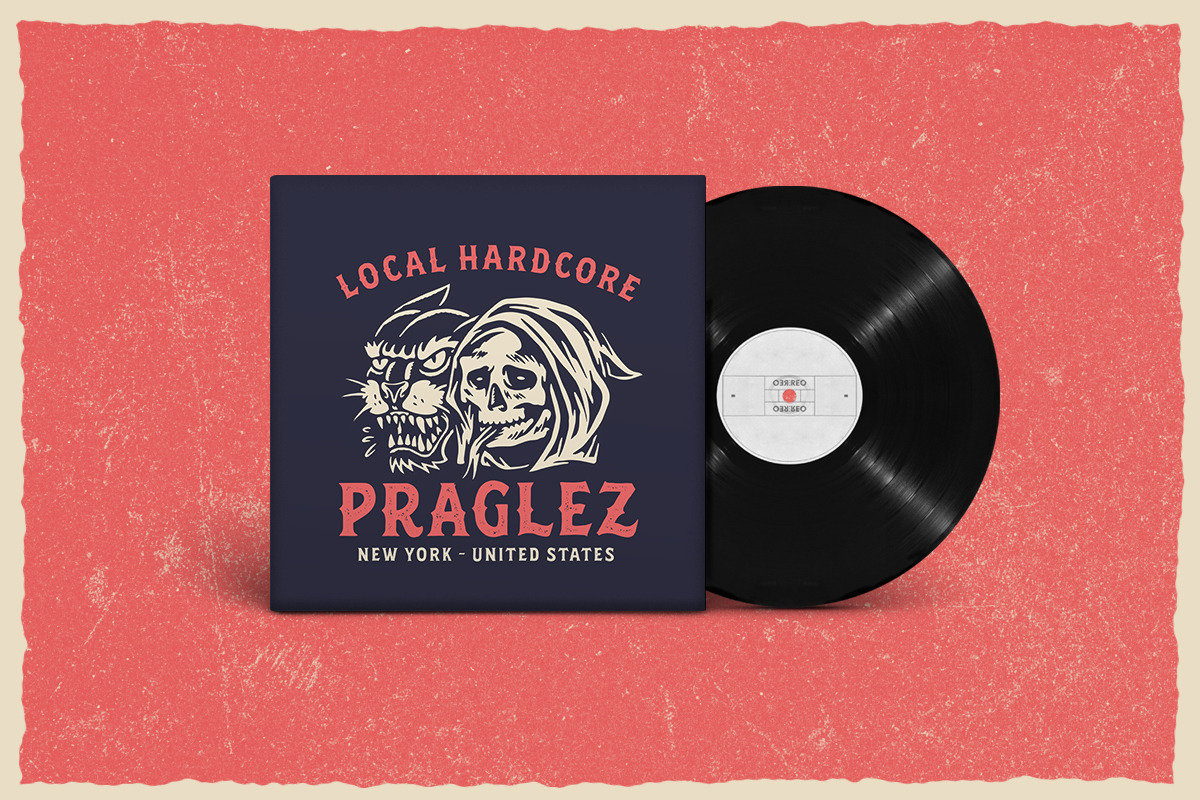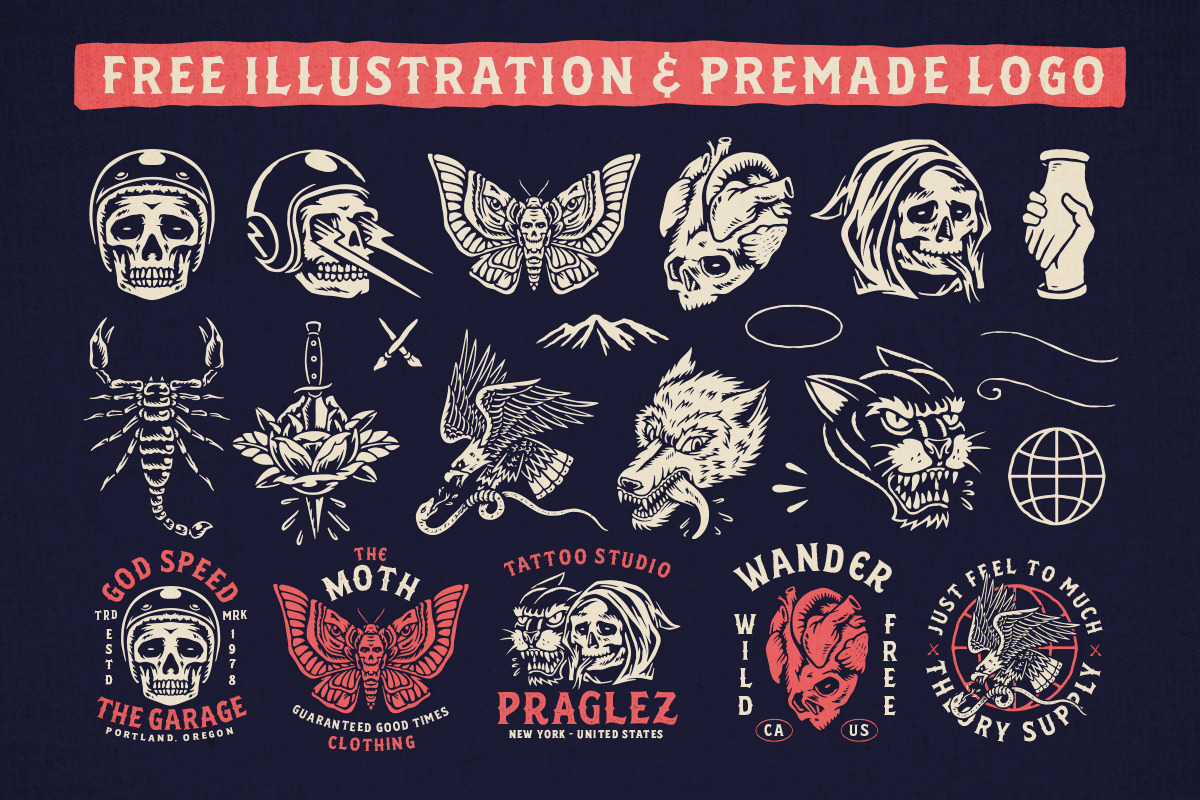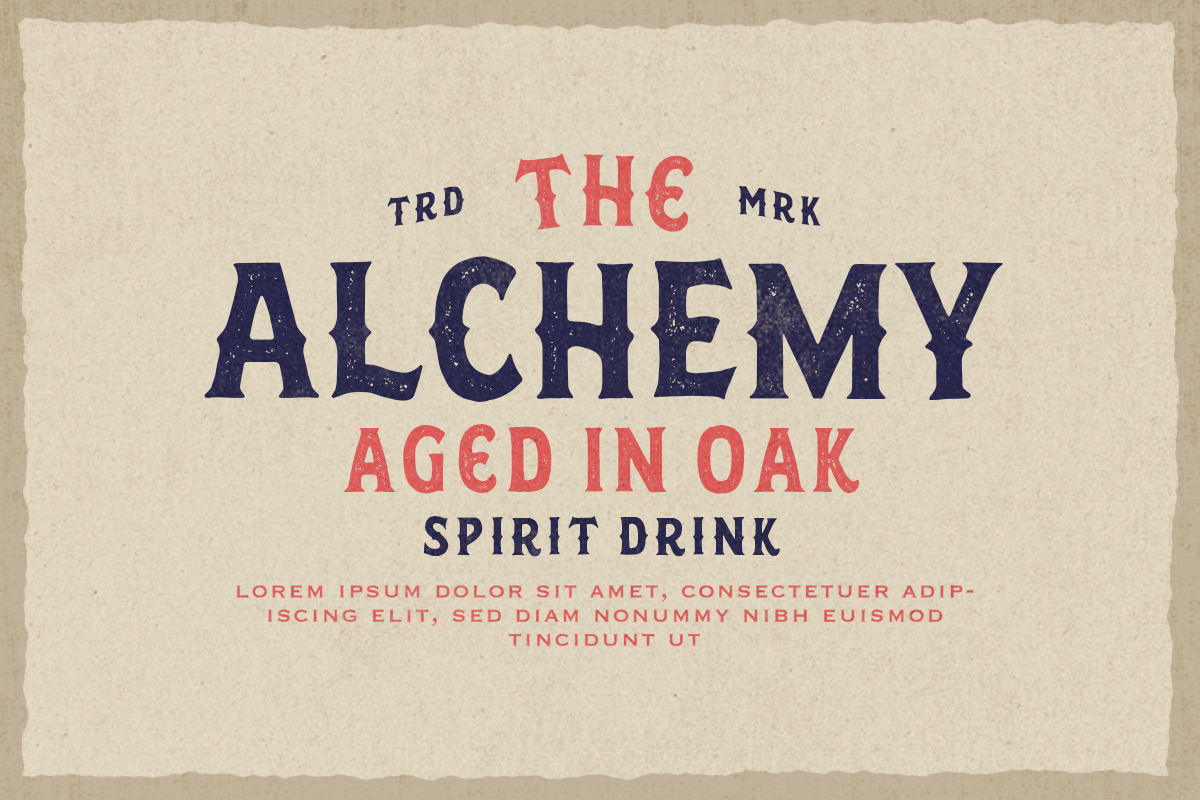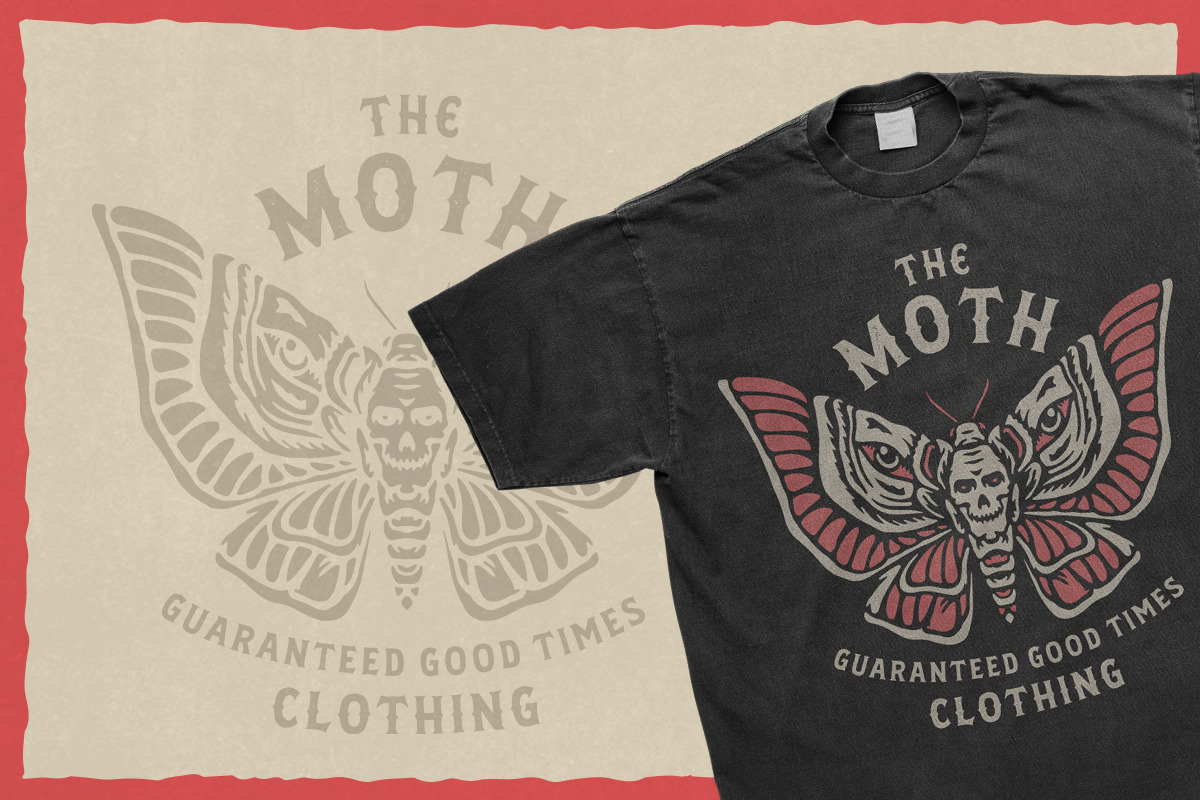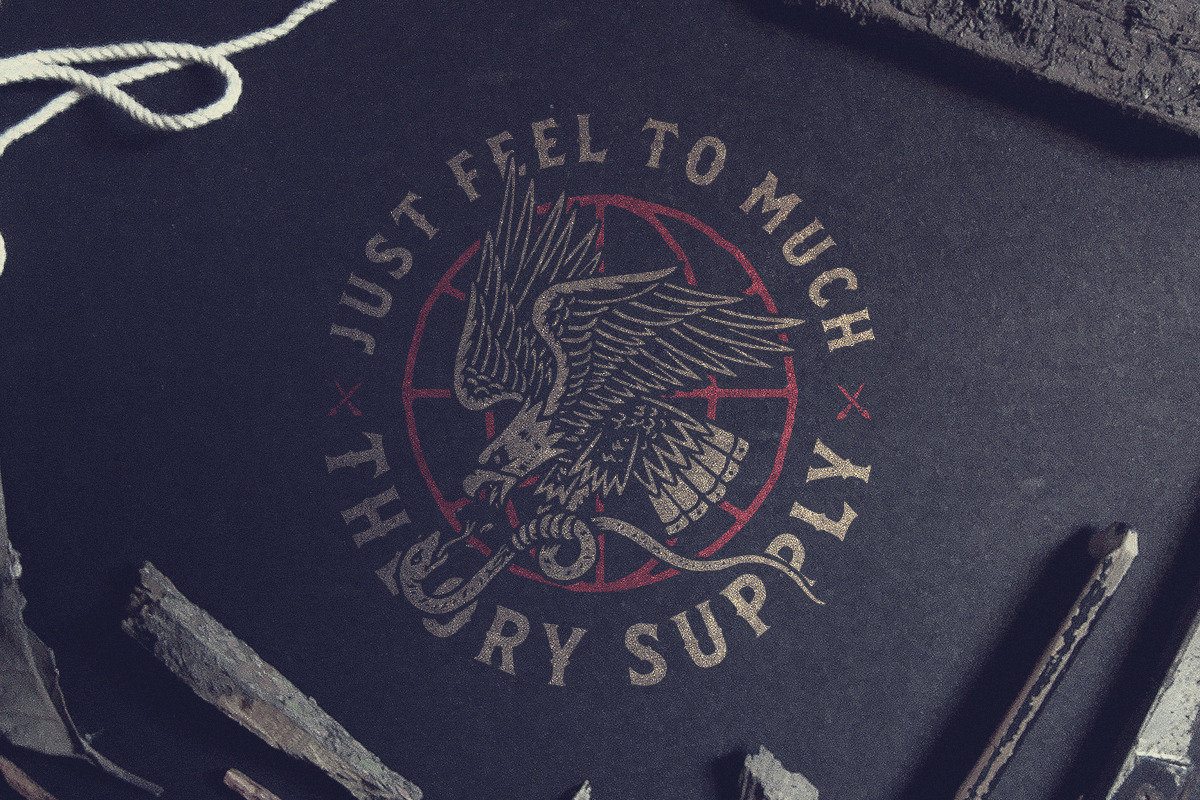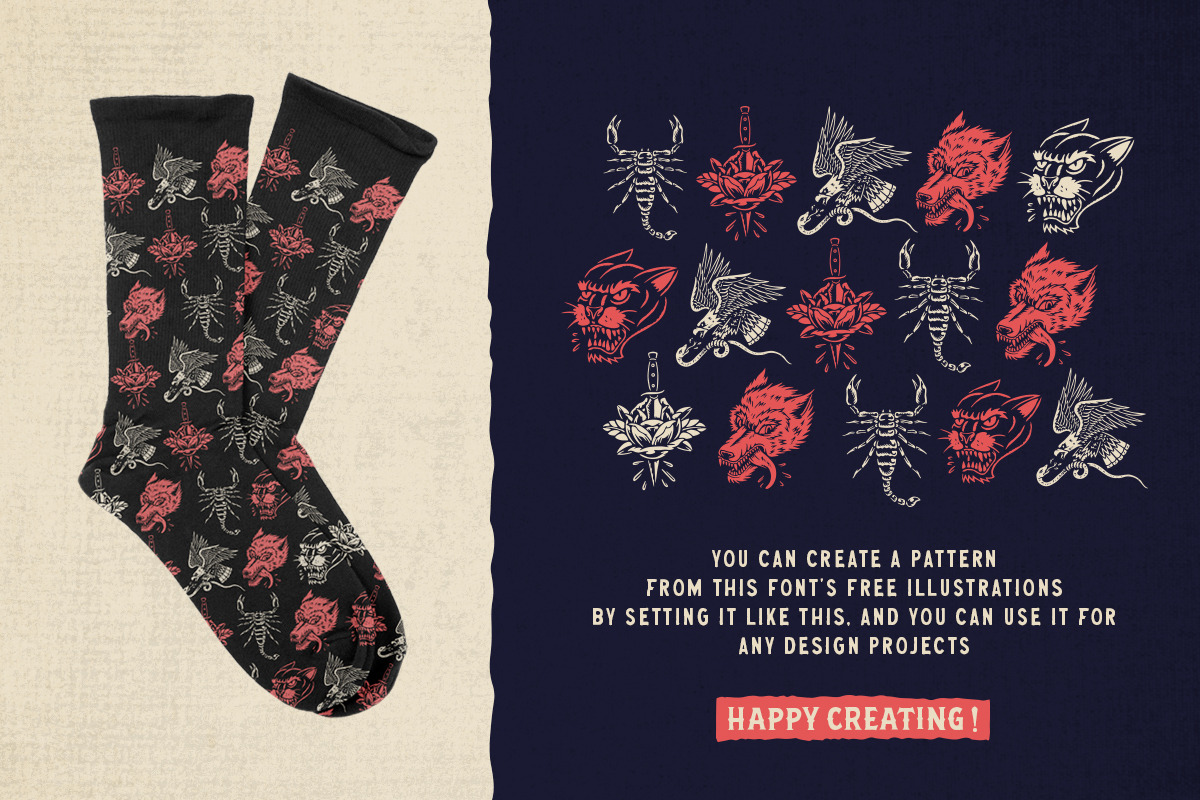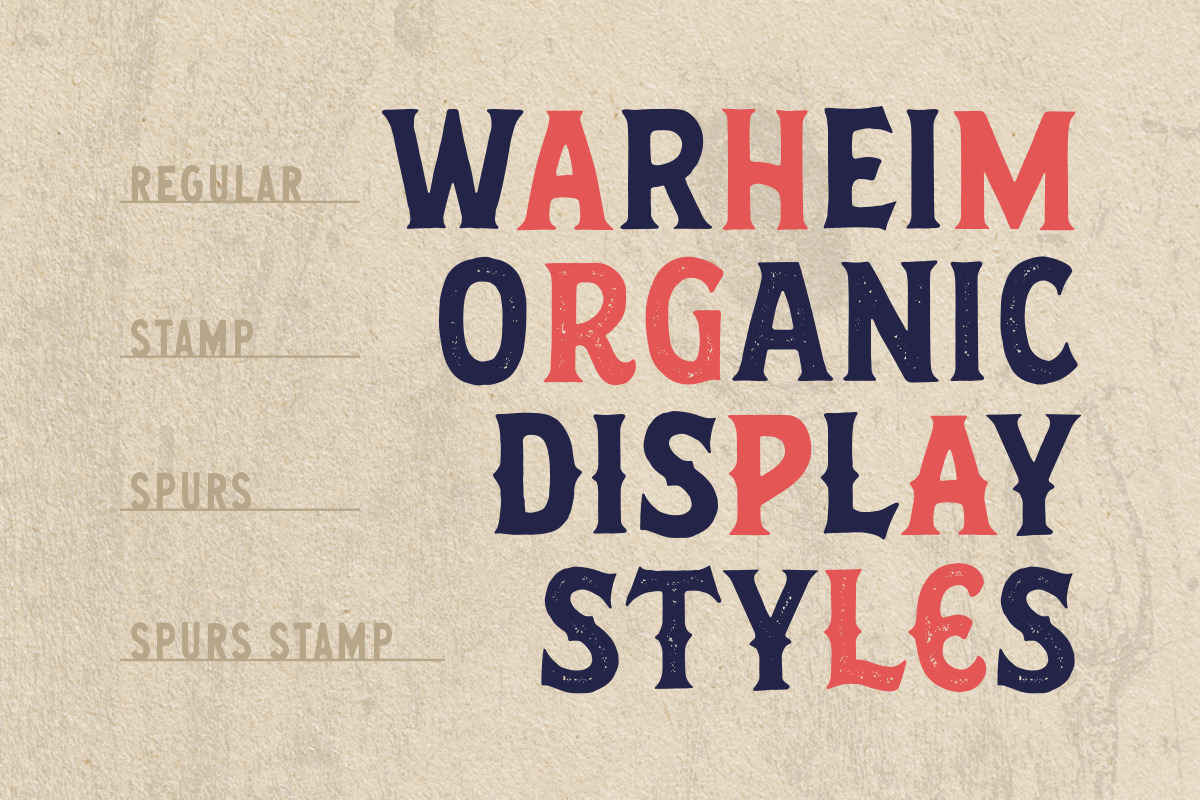
Warheim Display & Extras
Warheim is a organic display typeface with handdrawn feel. Comes with regular, stamp, spurs and spurs stamp styles. Also come with FREE illustrations and editable logo to make better design. This typefaces is perfect for people looking for vintage aesthetic and organic feel. Suitable for any graphic designs such as branding materials, t-shirt, print, logo, poster, t-shirt, quotes .etc